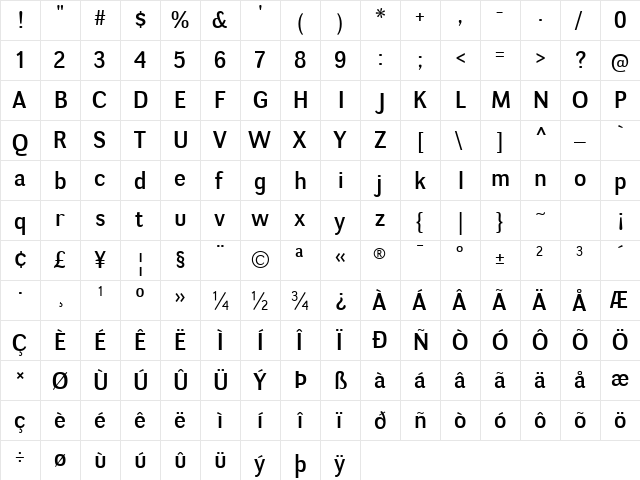
Negotiate Free
Design Context for Negotiate Typeface
Negotiate takes a measured approach to typography — its balanced proportions and neutral character make it a reliable workhorse for both digital and print work.